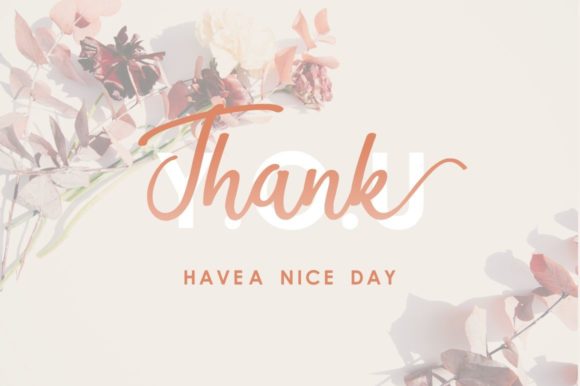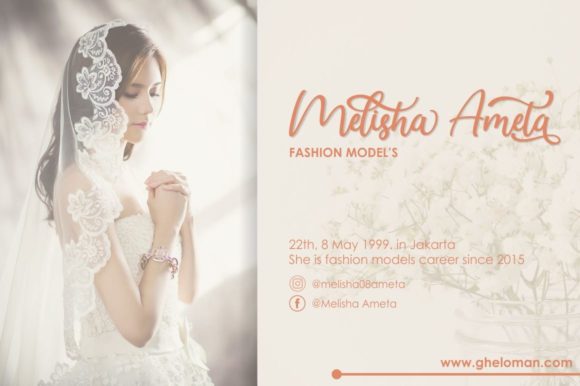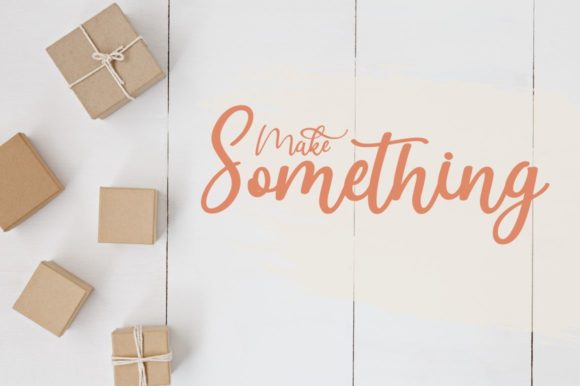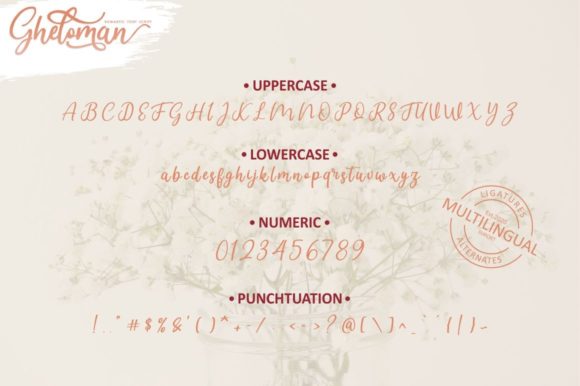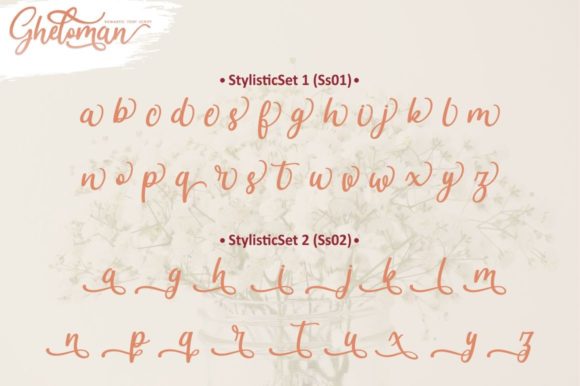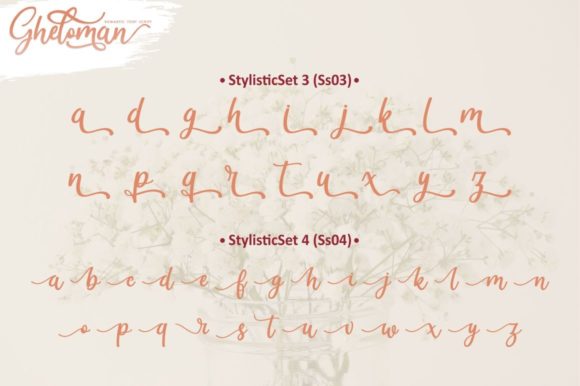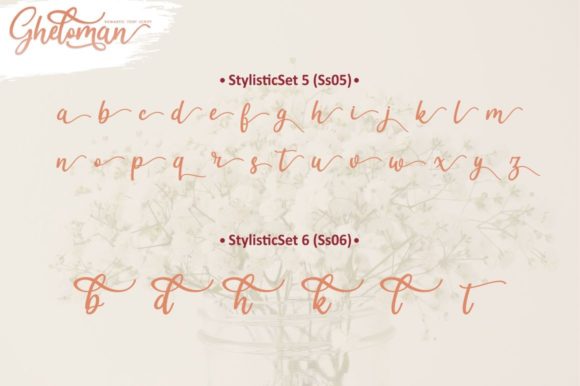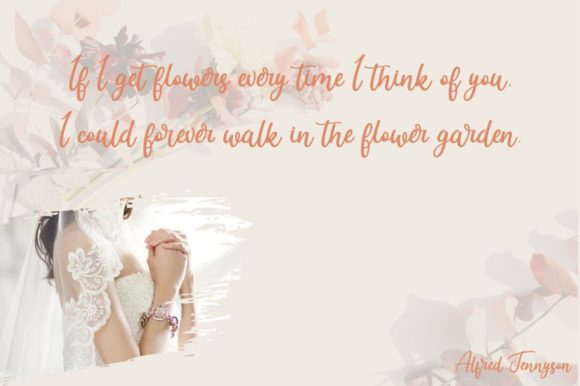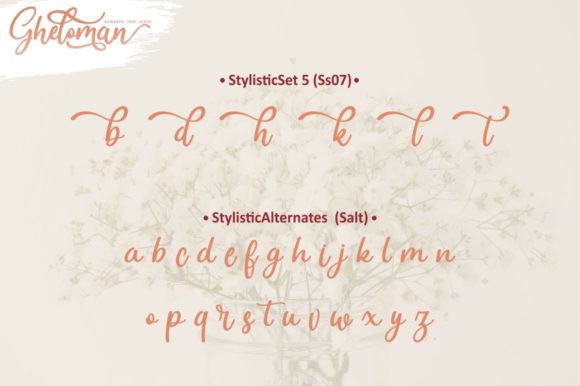
Gheloman Script Font
About Gheloman Script Font
Gheloman is a modern and romantic script font, masterfully designed to perfection! It has beautifully flowing characters that can elevate the look of any creative project! This font is PUA encoded which means you can access all of the glyphs and swashes with ease!